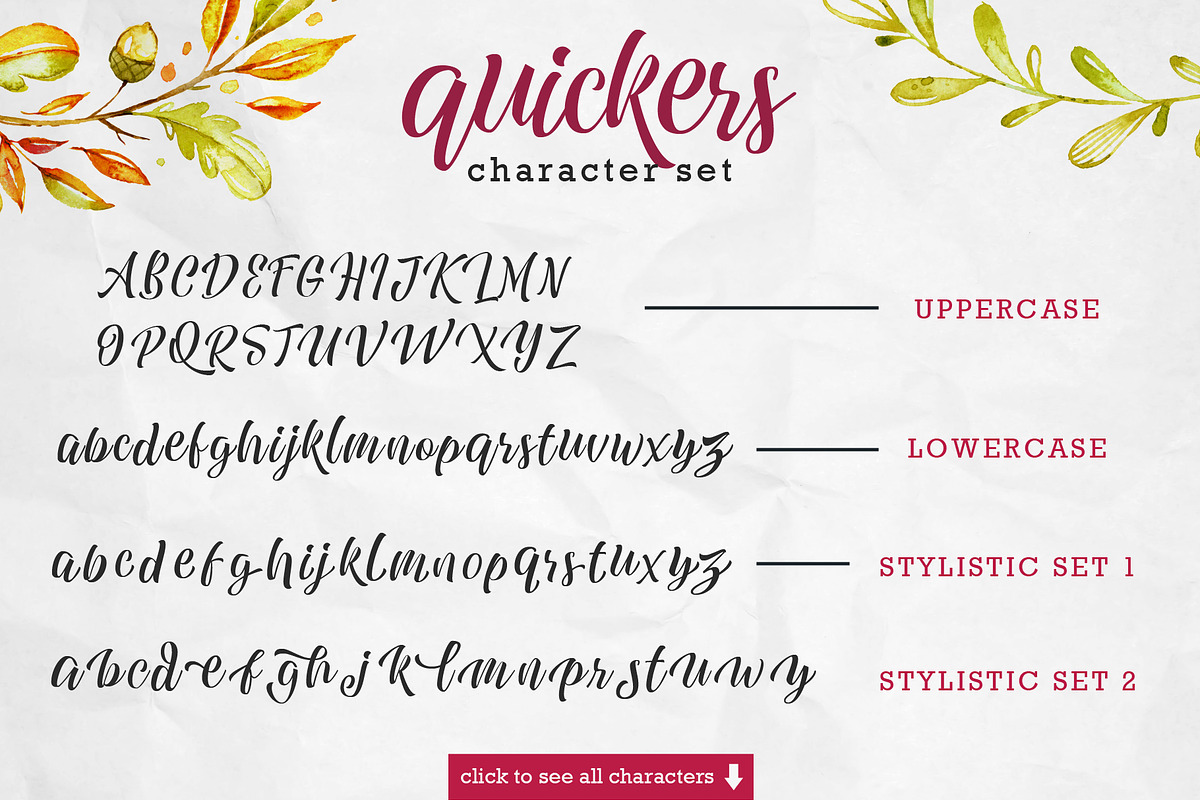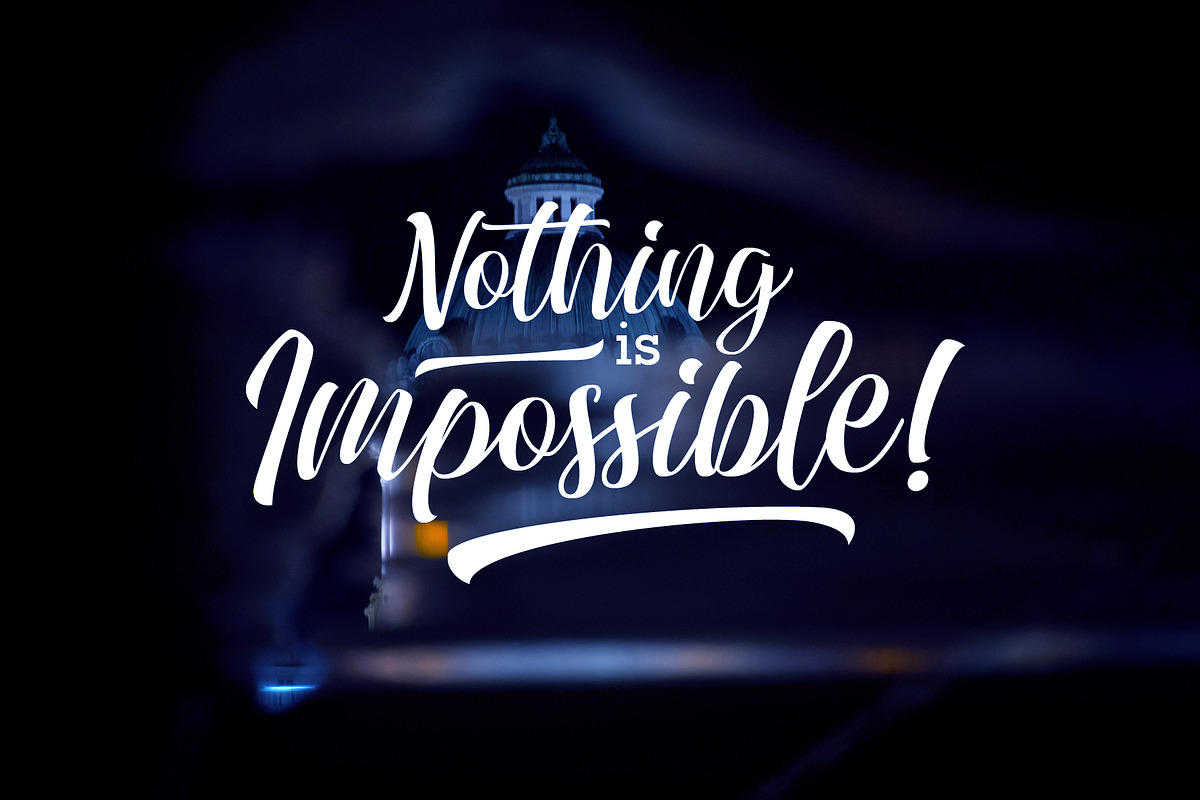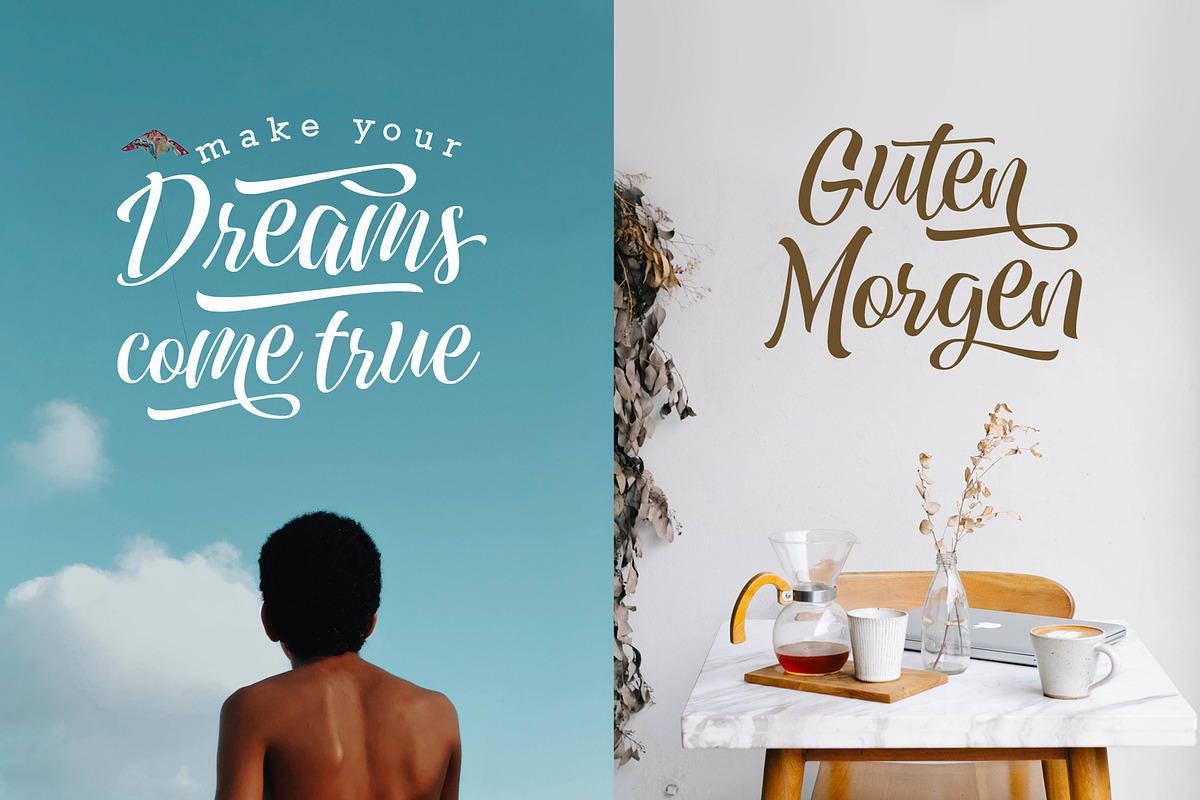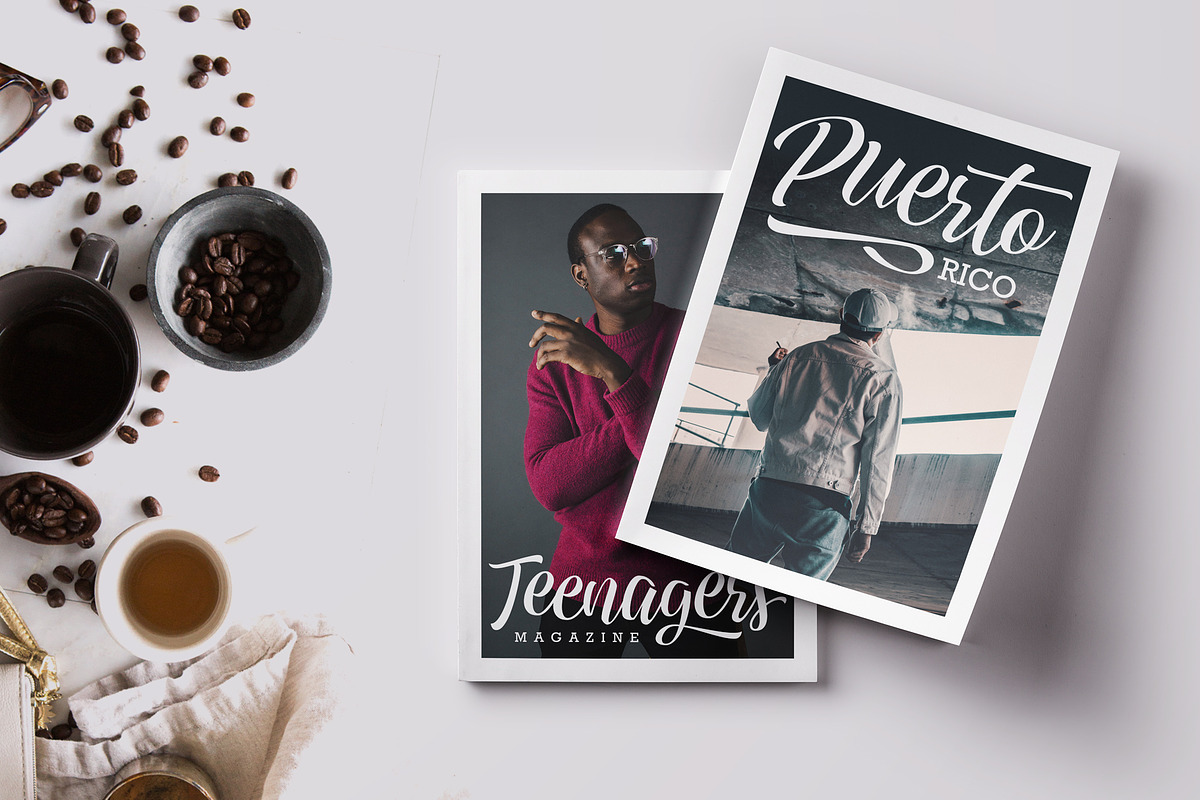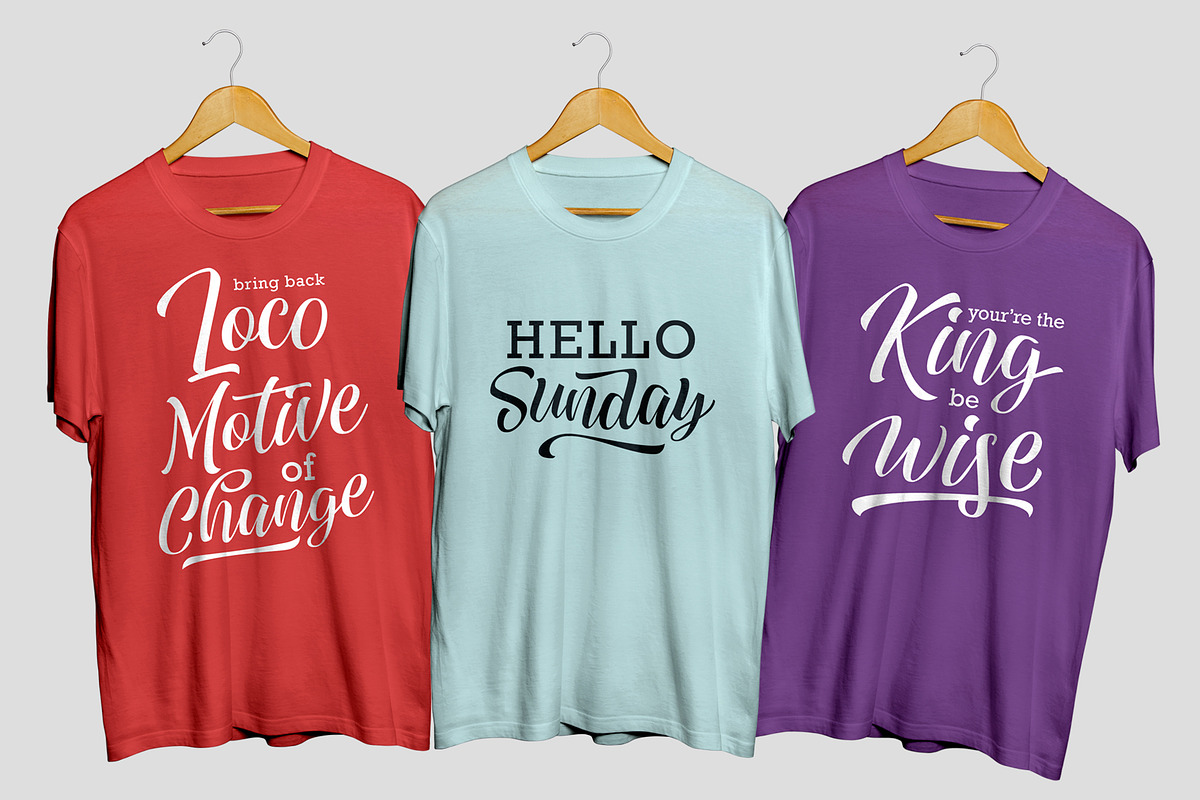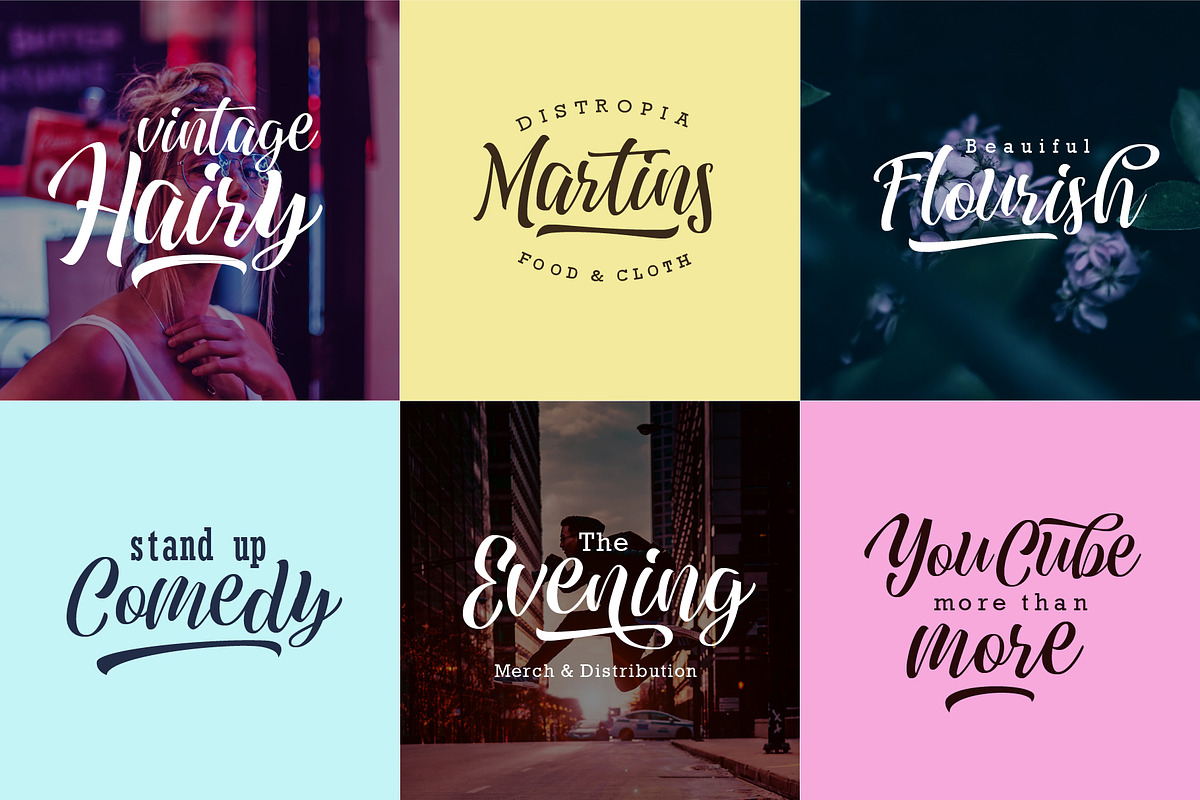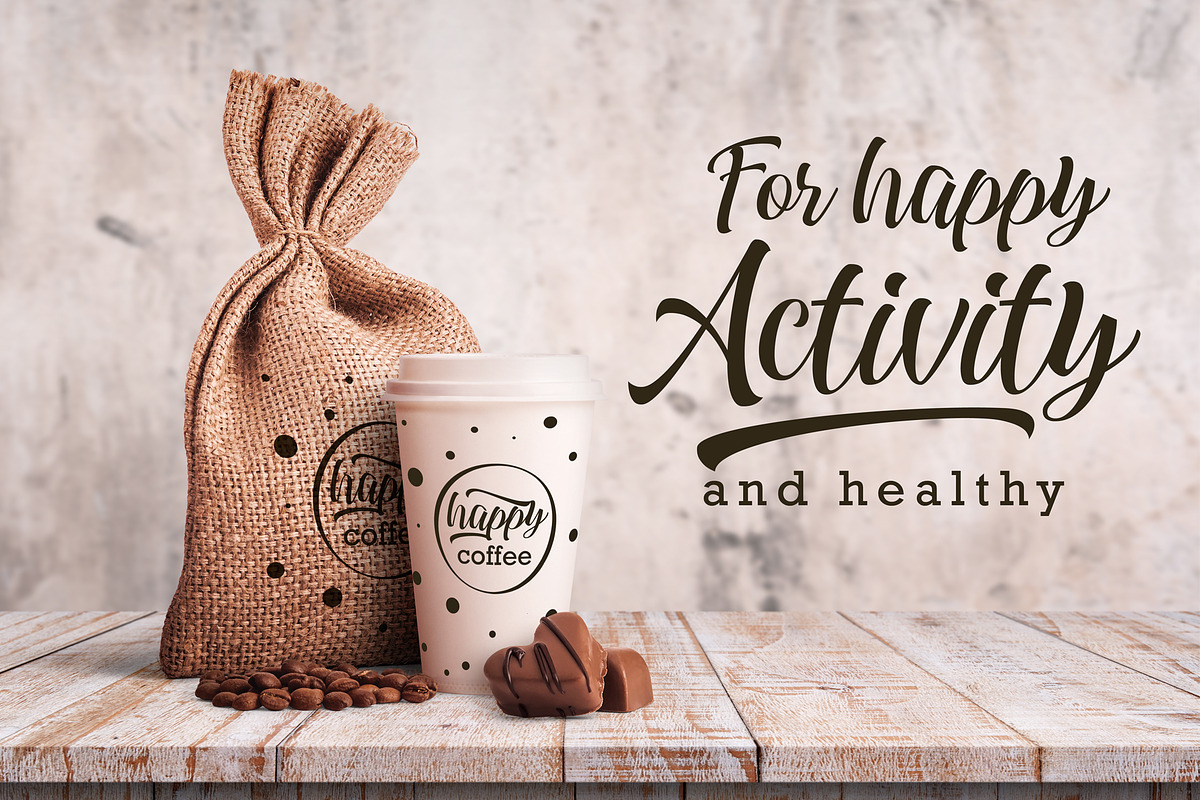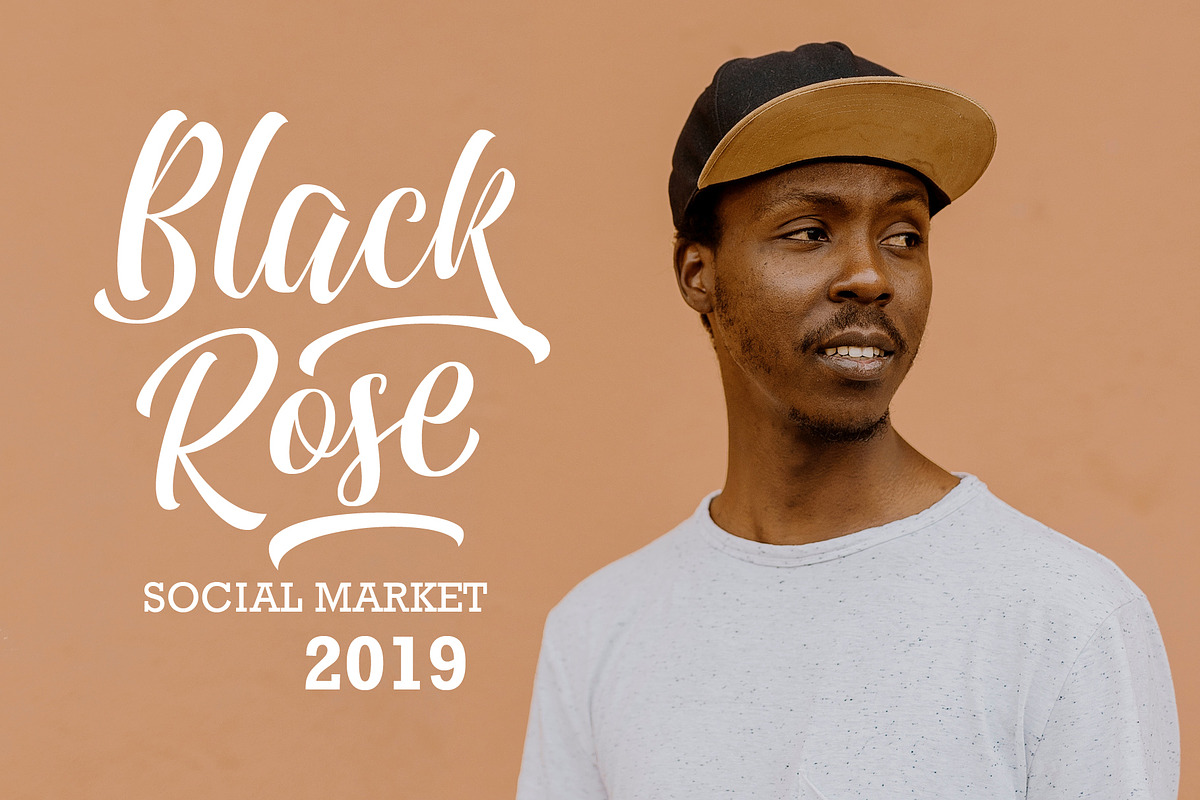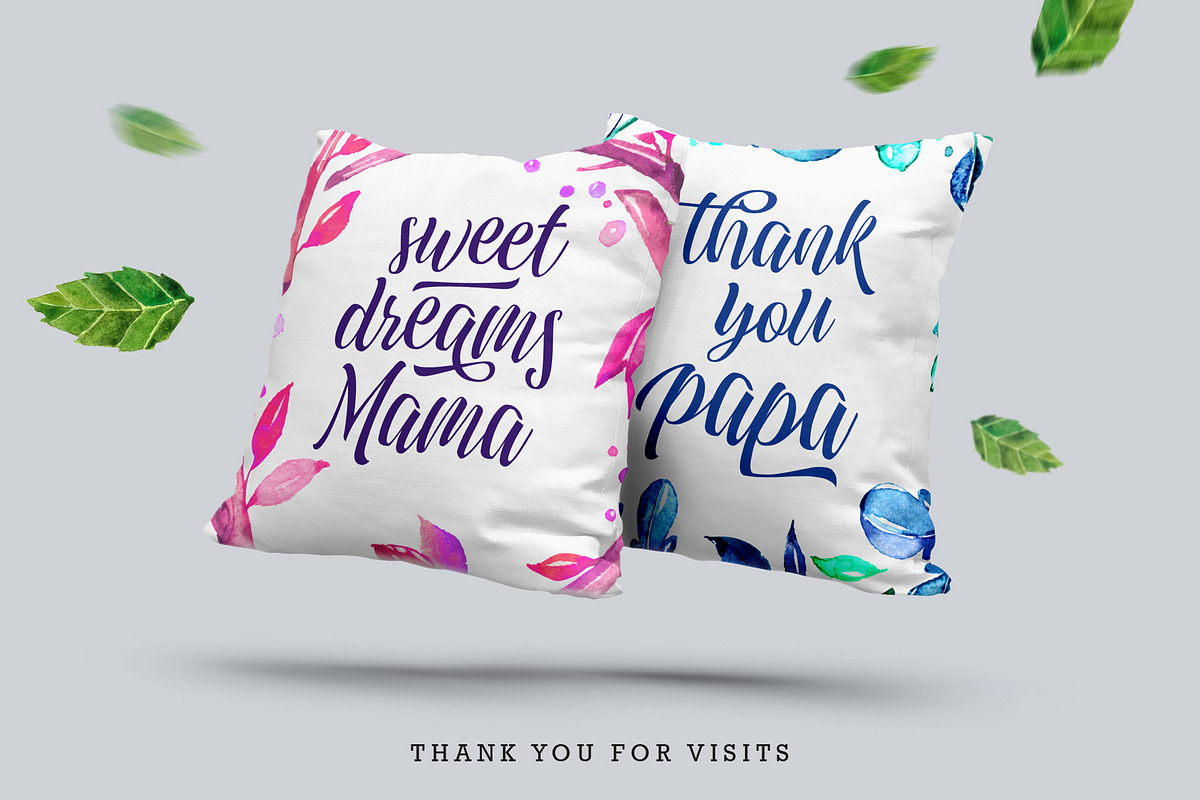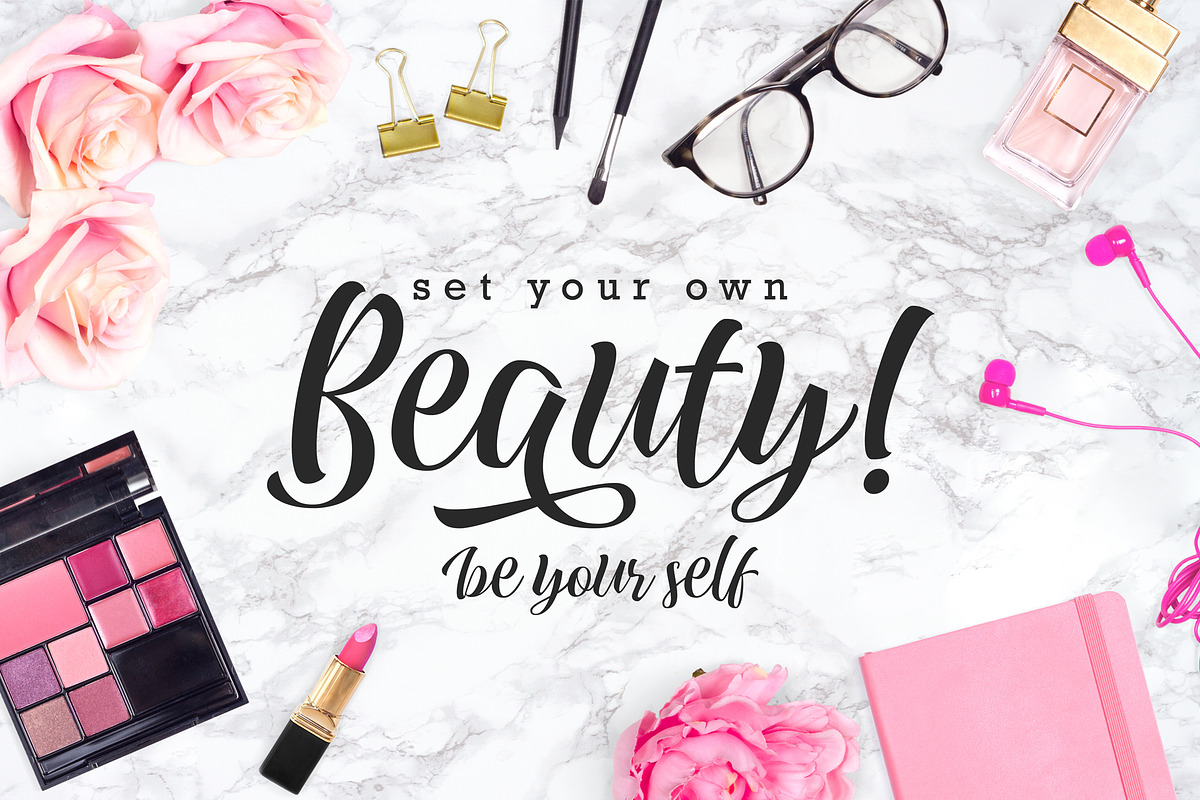
Quickers Typeface
Introducing QUICKERS Freestyle Brush Font
Quickers is a solid brush font who inspired from craft movement and brush lettering. You can use Quickers Typeface as a logo design, logotype, label, quotes, headline, poster, apparel, insignia, badges, invitation, even print design.
Quickers Typeface, comes with many variation of characters that allows you to create dynamic lettering style. The OpenType features can be accessed by using OpenType panel such as Adobe Illustrator, Adobe Photoshop, or Adobe InDesign. Also you can simply copy-paste in Font Book (from Mac) and Character Map (from Windows)
- Punctuation & Symbol
- Contextual alternates
- Accents : ÀÁÂÃÄÅÆÇÈÉÊËÌÍÎÏÐÑÒÓÔÕÖØÙÚÛÜÝÞßàáâãäåæçèéêëìíîïñòóôõöøùúûüýþÿĀāĂăĆćĈĉČčĎďĐđĒēĔĕĚěĜĝĞğĤĥĦħĨĩĪīĴĵĹĺĽľŁłŃńŇňŌōŎŏŒœŘřŚśŜŝŞşŠšŤťŦŧŨũŪūŬŭŮůŴŵŶŷŸŹźŽžẀẁẂẃẄẅ